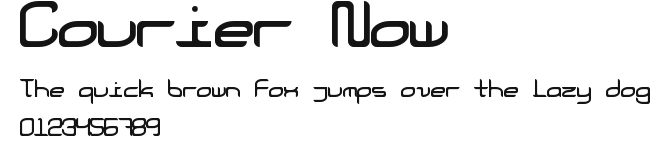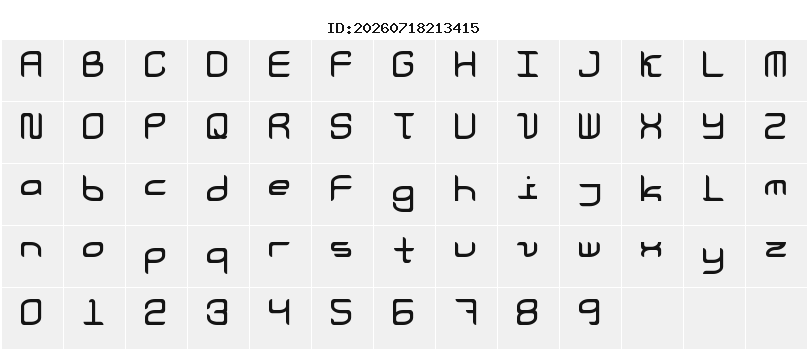
Courier Now.ttf is a modern, elegant sans-serif font designed for ultimate readability and visual harmony. Perfect for branding, headlines, web design, and print materials.